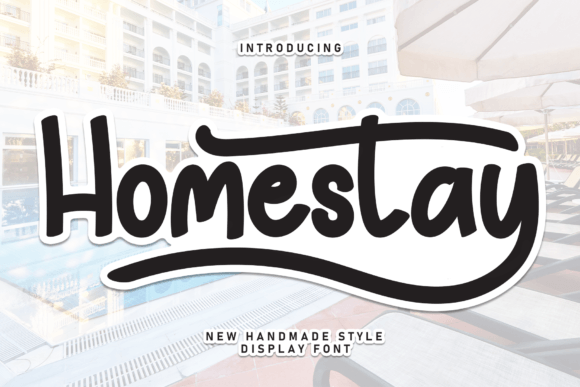
Welcome to the world of Homestay Font, an enchanting script font family that will bring a touch of warmth and charm to any design project. Crafted by the talented Strongkeng Old with a passion for creating fonts that spark joy, Homestay Font is a delightful choice for those seeking a font that exudes personality and character.
Step into the world of Homestay Font, where every letter dances with elegance and grace, capturing the essence of handwritten beauty. Its charming curves and playful strokes create a visual symphony that will leave you spellbound. With its remarkable versatility, Homestay Font seamlessly adapts to a wide range of design needs, from wedding invitations and greeting cards to posters, social media graphics, and branding materials.
With Homestay Font, you have the power to transform words into art, turning your creative vision into a captivating reality. Its whimsical nature perfectly complements heartfelt messages, breathing life into your expressions of love, joy, and gratitude. Let Homestay Font be your creative companion as you craft designs that resonate with your audience, leaving a lasting impression.
Immerse yourself in the magic of Homestay Font, where each letter tells a story, conveying emotions and evoking memories. Its unique charm effortlessly draws attention, making your designs stand out from the crowd. Whether you're crafting a wedding invitation that radiates romance or creating a playful social media post, Homestay Font adds a touch of enchantment that captivates and delights.